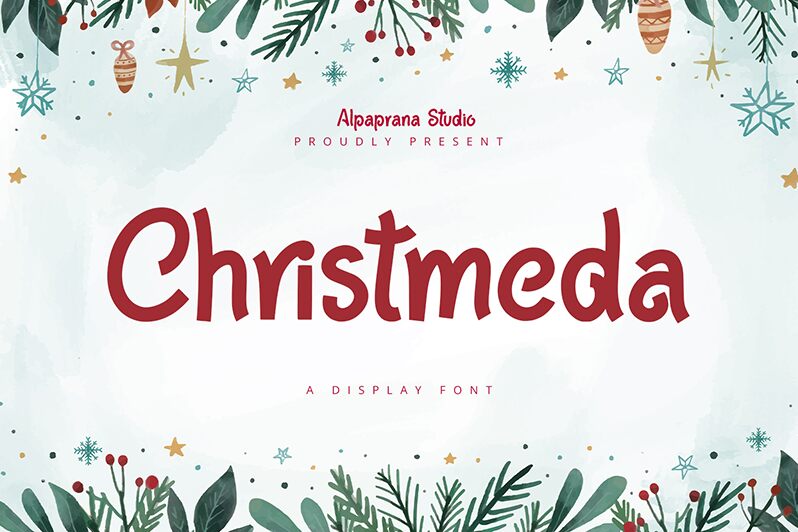
Christmeda font by Alpaprana Studio is a festive typeface with a casual and friendly tone. It presents itself with an energetic character, giving the letters more rhythm and movement for their Christmas journey. This modern script font has smooth transitions, fluid connections between characters, and versatile shapes to add charm to whatever personal or commercial projects you use it on.